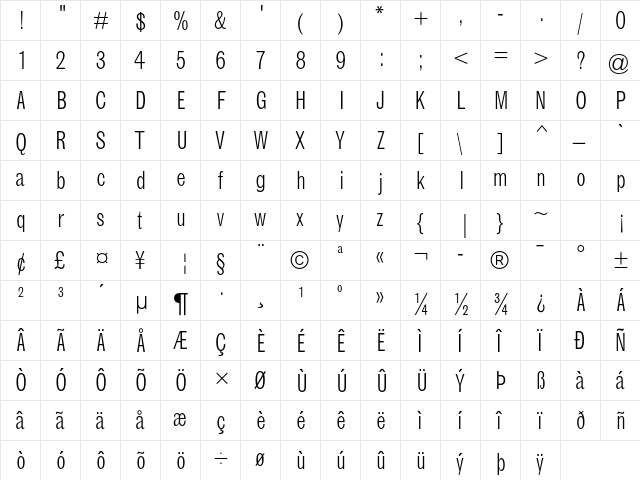
Grotesque MT Std Light Condensed Font Preview
Design Context for Grotesque MT Std Typeface
Grotesque MT Std takes a measured approach to typography — its balanced proportions and neutral character make it a reliable workhorse for both digital and print work. Its slender proportions lend an understated elegance to any composition. The condensed width makes it efficient for tight spaces without sacrificing legibility.